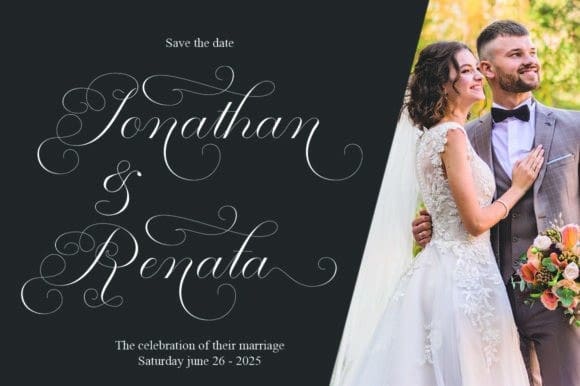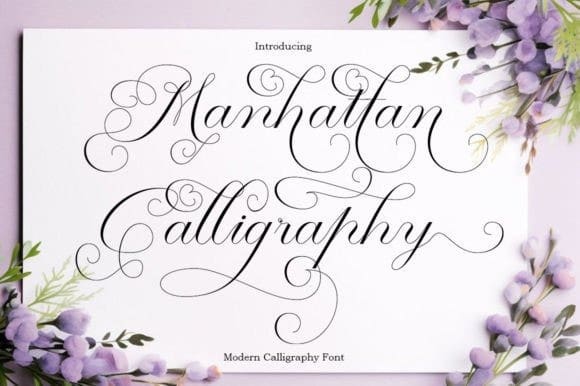
Manhattan Calligraphy Font
Manhattan Calligraphy Font is a new modern script font with an irregular baseline. Trendy and feminine style, ManhattanCalligraphy looks lovely on wedding invitations, thank you cards, quotes, greeting cards, logos, business cards and more.